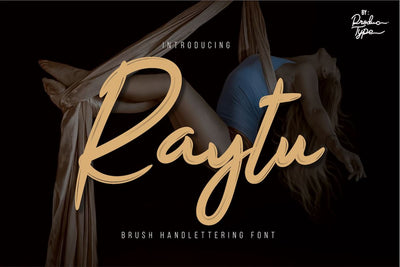
Raytu
Raytu is a bold and stunning script font with a unique style. Use this font for any crafting project that requires a personalized look!
This font will turn any creative idea into a true piece of art, this font is perfect for strong text with displays for a wide variety of branding, advertising, posters, banners, packaging, headlines, outdoor activity, websites, logo design, and more.